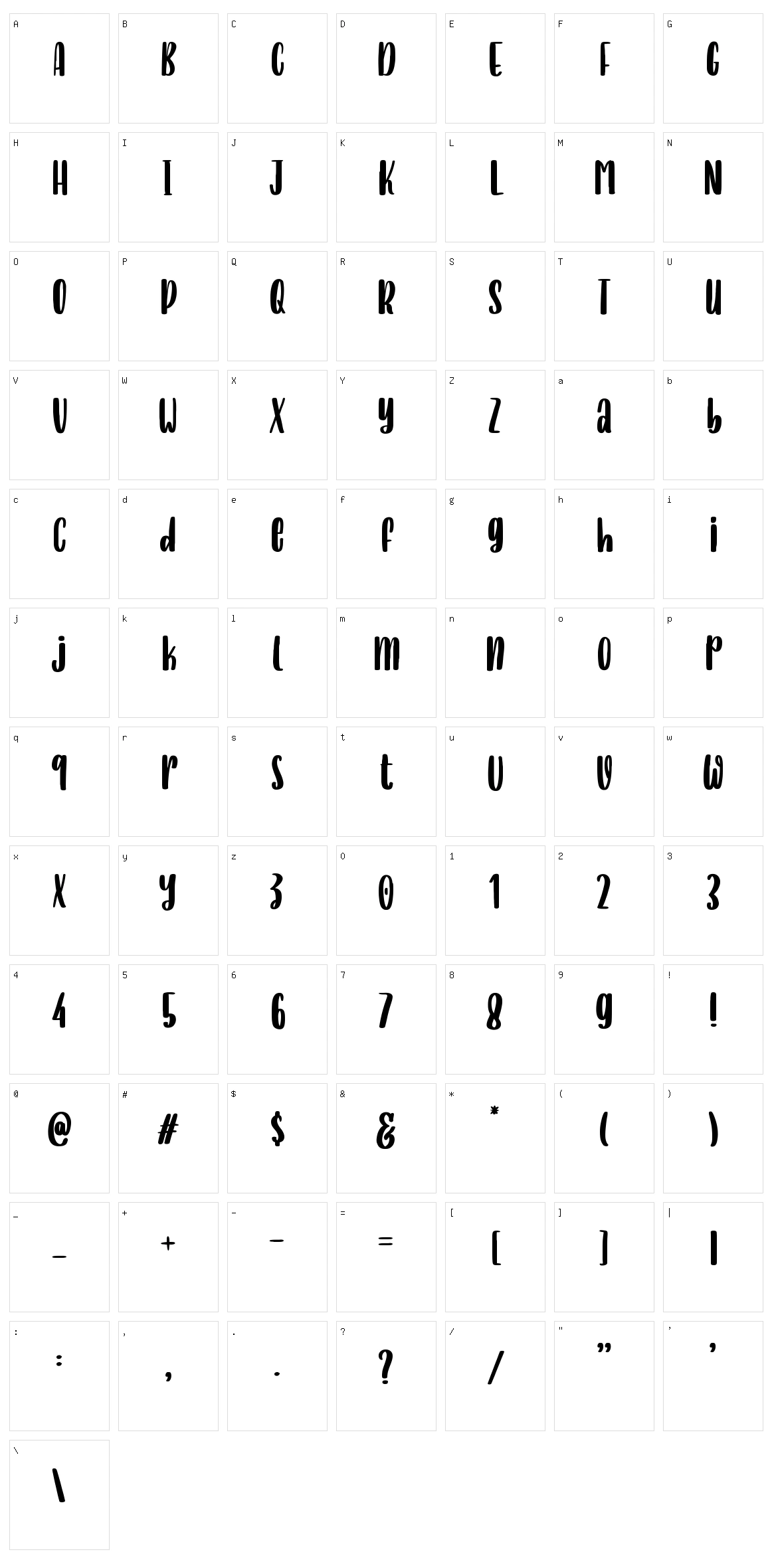
The free font Holiday In Paris is carefully designed by Creakokun Studio, showcasing a thoughtful balance of creativity and usability and falls under the Cartoon font style. When you download the ZIP file, it contains only 18.52 KB of font files, making it lightweight and quick to download. Please review the license details below to understand permitted usage and distribution rights. If license information is not available, we recommend using this font for personal projects only or contacting the author directly for commercial usage permissions.